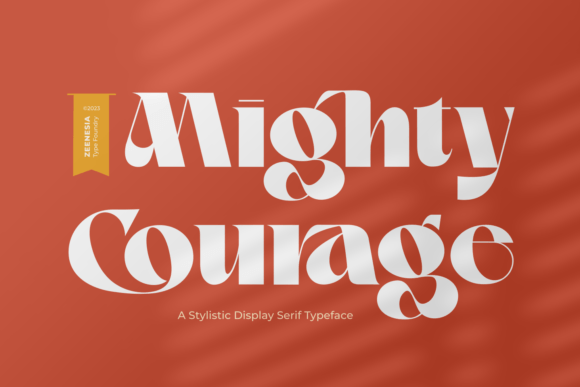
Welcome to the realm of Mighty Courage, a font family born to inspire and captivate. With its modern and elegant serif strokes, Mighty Courage is a visual symphony that dances across your designs, leaving an indelible mark. Its unique and distinctive characters exude a charm that sets it apart from the ordinary, making it the perfect choice for those seeking individuality and sophistication.
Immerse yourself in the world of Mighty Courage and unlock the key to unlocking your creative potential. Whether you're a seasoned designer or just starting your artistic journey, Mighty Courage is your trusted companion, guiding you towards design excellence. Discover the boundless possibilities that await you as you craft logos that command attention, web designs that leave a lasting impression, and branding materials that resonate with your audience.
With Mighty Courage as your creative ally, you'll never settle for the mundane. Step into a realm where fonts come alive, where words leap off the page with newfound energy, and where your designs ignite a spark of inspiration. Mighty Courage is more than just a font; it's a gateway to a world where creativity flourishes.
Embark on a typographic adventure with Mighty Courage and let its elegant strokes paint a picture of your imagination. Transform your designs into masterpieces, captivate your audience, and leave an indelible mark on the world of design. Mighty Courage awaits you, ready to ignite your creative spirit and unleash a world of possibilities.